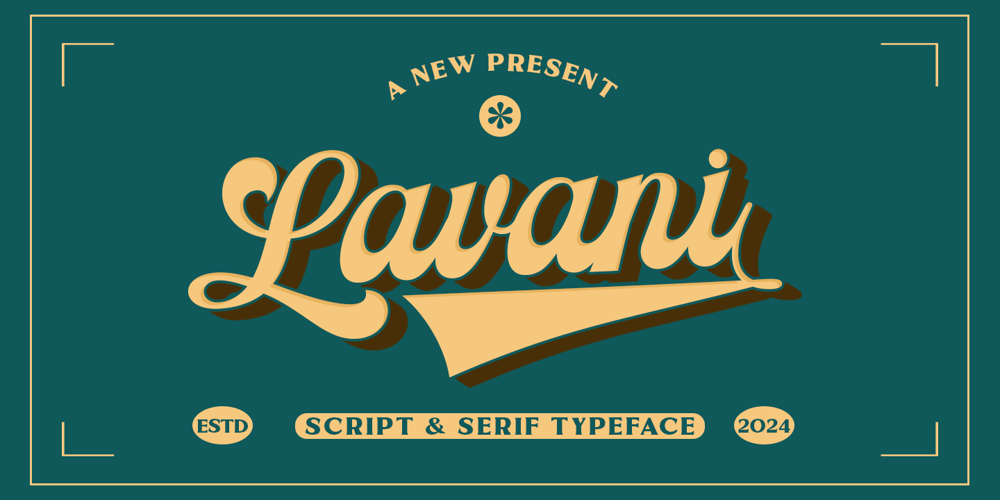
Lavani Script
Lavani Script font
Lavani Script Font Family was designed by Rizki Andika and published by Letterfreshstudio. Lavani Script contains 5 styles and family package options. Lavani Script retro font styled like a logotype letter.created to help you design a logotype or writing style for your Brand or your client.it has extensive language support, including European and Asian Latin scripts.The font contains all the characters you need, including all punctuation and numbers. Lavani Script has 5 fonts, these four fonts are used using the layer method so that they can produce fonts that are attractive to look at, you no longer need to worry about thinking about how to give effects to the text.Thankyou.